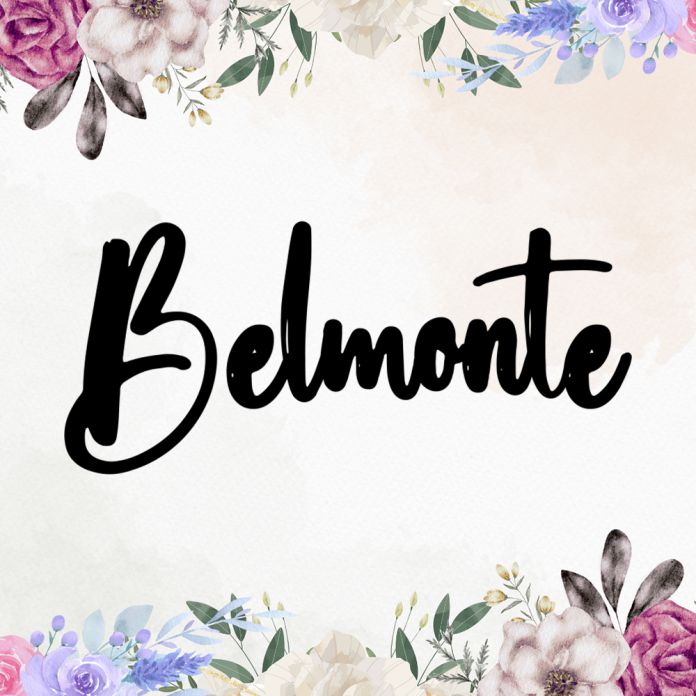
Belmonte is a simple yet elegant handwritten font. This versatile font has a wide spectrum of applications ranging from greeting cards to headlines and is guaranteed to add a simple and natural feel to your next project! This font is PUA encoded which means you can access all the glyphs and ligatures with ease!